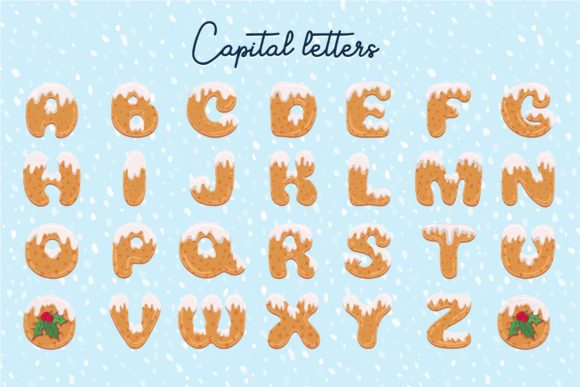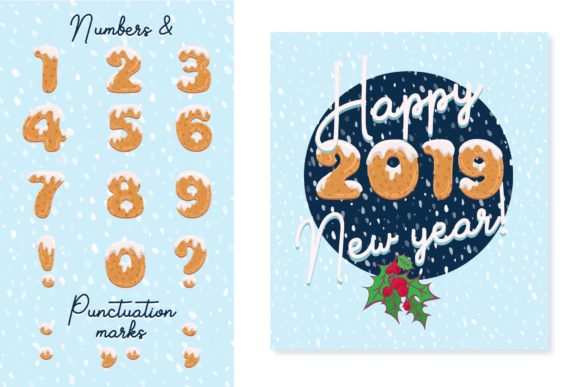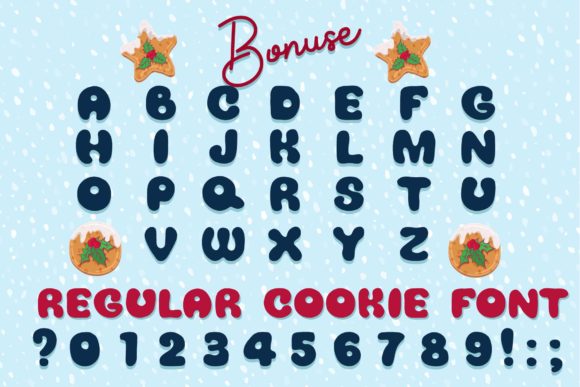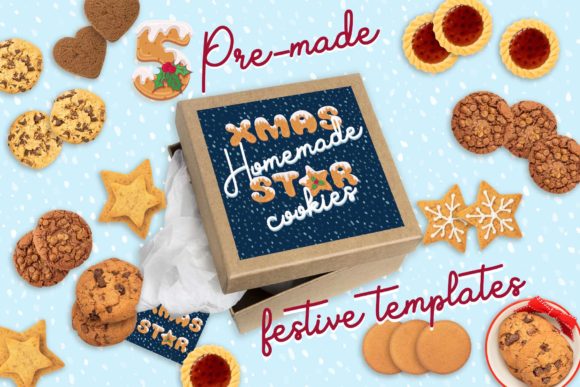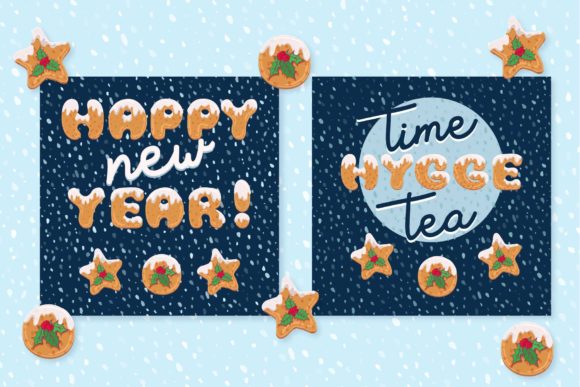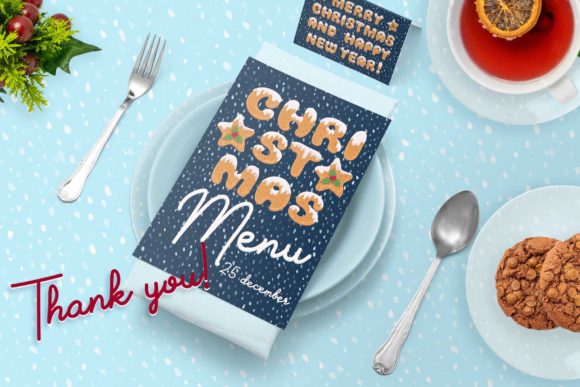
Xmas Cookie Font
About Xmas Cookie Font
The Cookie Color font family is a contemporary and visually striking option. It offers two distinct styles: regular and glazed. This font family showcases a stunning geometric color font, making it the perfect choice for contemporary designs that require a vibrant color block appeal.
In addition to the font styles, the package also includes two alphabet vector posters. These posters provide you with creative and versatile options for showcasing the font in action. With these posters, you can demonstrate the font’s unique characteristics and capture the attention of your audience.
As an added bonus, you’ll receive five pre-made festive templates. These templates serve as a starting point for your design projects, specifically tailored for celebratory occasions. They offer ready-made designs that can be easily customized to meet your specific needs, saving you valuable time and effort.
With The Cookie Color font family, along with the included alphabet vector posters and festive templates, you have a comprehensive set of resources to enhance your design projects. Its modern appeal and vibrant color options will help you create contemporary and eye-catching designs that stand out from the crowd. Remember to leverage vector editing programs to maximize the font’s color capabilities and bring your creative vision to life.